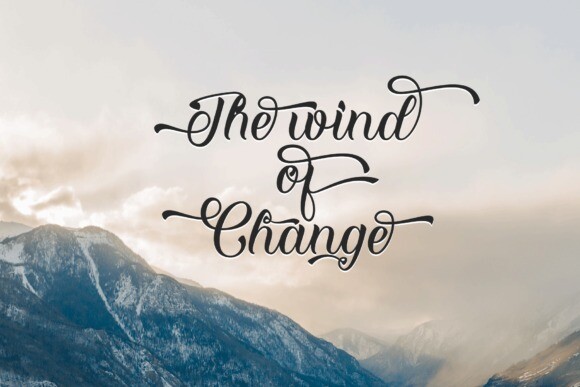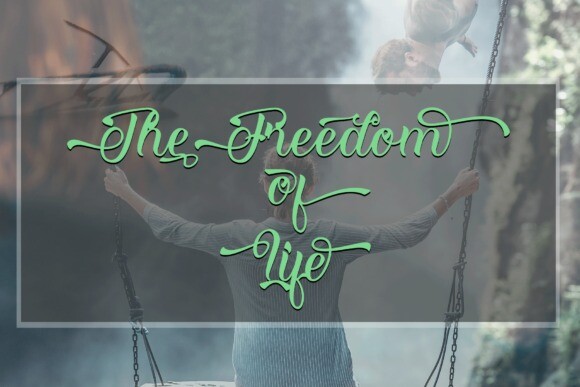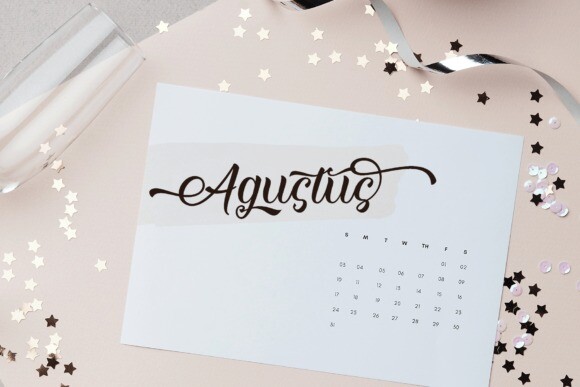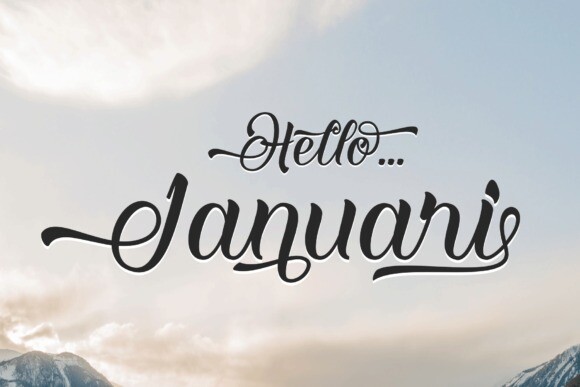
Hello Januari Font
Hello Januari Font is a multipurpose bold typeface which can be used in both modern or vintage design style. It’s designed and shared by Sinfa.co. Trendy and stylish, this font will elevate each of your creations. Hello Januari is PUA encoded which means you can access all of the glyphs and swashes with ease!